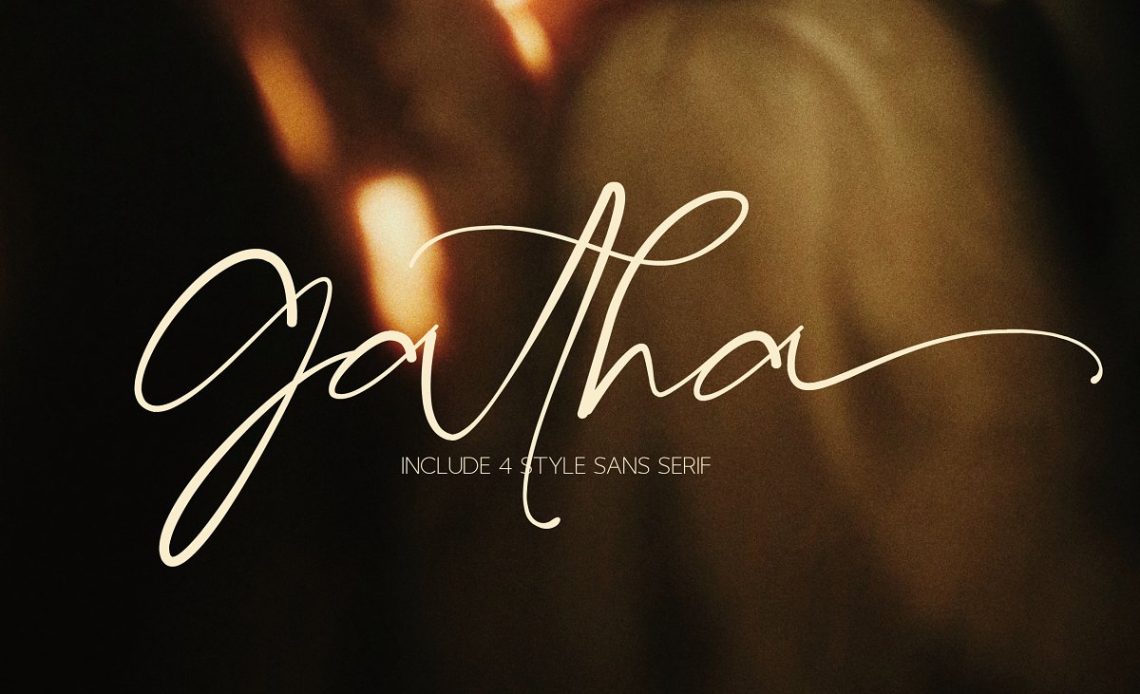
Looking for the perfect font to elevate your quotes on Canva? Look no further than Gatha - Font Duo! Created by Khair unnas, Gatha is a fun and versatile font that includes both signature scripts and elegant, soft sans styles. With four unique styles, this font duo is perfect for your next design project!
Gatha includes a complete set of beautiful upper and lowercase letters, numbers, and a wide variety of punctuation marks, making it a great choice for use in Magazines, Posters, Branding, Websites, and more. The multilingual support ensures that Gatha can be used for projects in any language.
One of the most unique features of Gatha is the ligatures that are available for several lowercase characters, allowing for a more natural and flowing look. These are only accessible via software with opentype capability or a glyphs panel, such as Photoshop or Illustrator.
Gatha is perfect for anyone looking to add a touch of realism to their designs, with a final sweep that provides a realistic handwriting style. Whether you're a designer, blogger, or just someone who loves typography, Gatha is the best font for quotes on Canva.